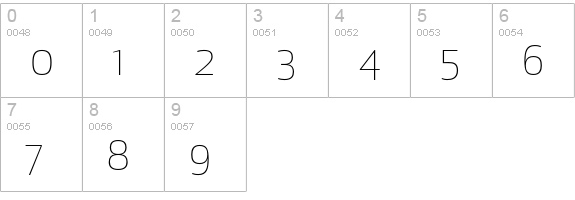
ApexNew-Light is a refined, elegant variant in the ApexNew typeface family \xE2\x80\x94 well suited to elegant body text, refined sub-headings, and luxury branding.
Introducing ApexNew-Light font, a sleek and modern typeface that exudes sophistication and elegance. With its clean lines and contemporary design, this font is perfect for a wide range of design projects, from branding to editorial design. What sets ApexNew-Light font apart is not only its stylish appearance but also the fact that it is available for free download at FontsMarket.com. This means that you can add a touch of class to your projects without having to spend a penny. Whether you're working on a website, poster, or logo, ApexNew-Light font will help you achieve a polished and professional look. Download it today and elevate your designs with this versatile and eye-catching typeface.